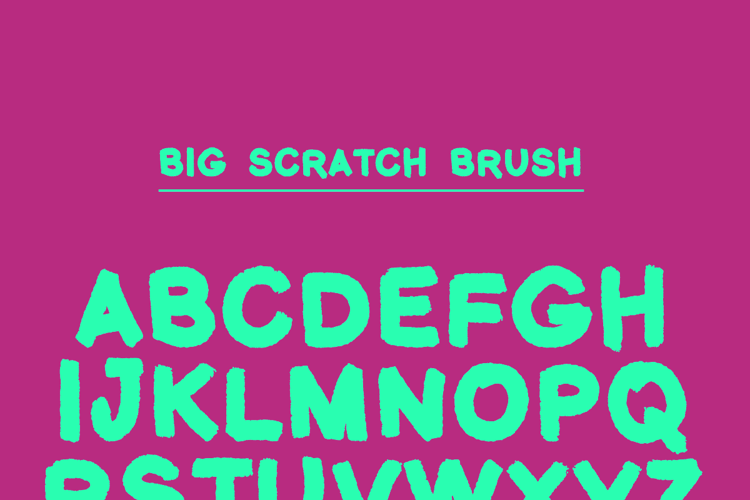
Big Scratch Brush Font
We are working on a new font digitization workflow, and Big Scratch Brush is our first experiment.
Big Scratch Brush is a big, thick, naturally dry brush font. It has a really raw texture, and uses a lot of points/curves. For powerful computers only, this is a big font.